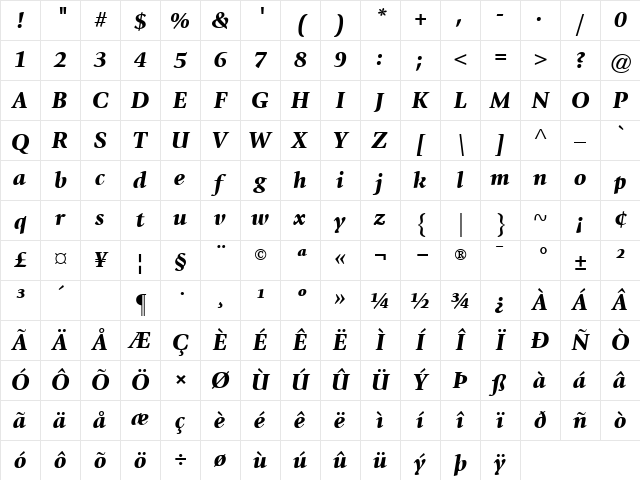
Giovanni BlackItalic
Style: BlackItalic
Design Context for Giovanni
Giovanni is a composed and adaptable typeface that performs quietly and consistently across a wide range of design contexts. The slanted form adds forward momentum and visual energy.
Pro Tip: Use Giovanni for emphasis, pull quotes, and subheadings where its slanted energy can add rhythm to the layout.